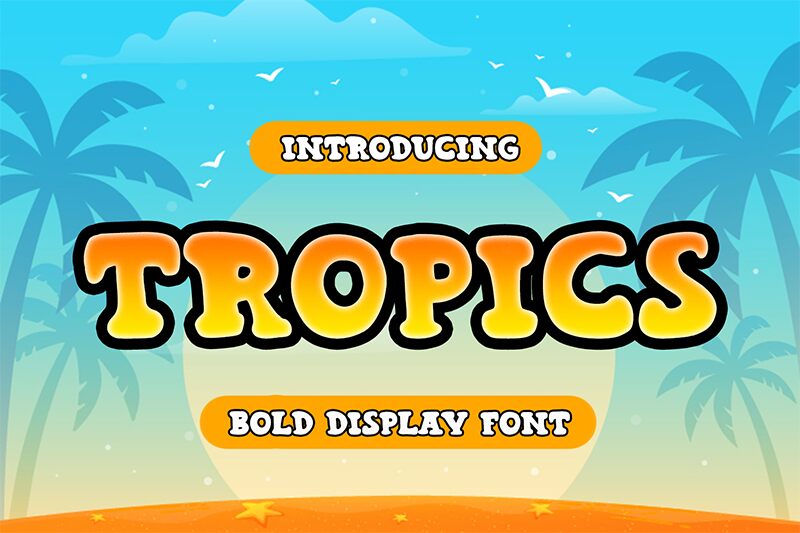
Tropics
Tropics font by Alpaprana Studio is characterized by organic rounded forms, retro influence, bold presence, and a casual mood. This free display font leans into a cartoon style inspired by the 1960s-1970s ambiance as seen in its approachable letter design. Aesthetically, Tropics draws attention to each of its characters while maintaining legibility.
The font’s playful nature fits perfectly within schoolbook covers and headlines. It also nicely complements cartoon/comic titles, branding and logo designs particularly for kids’ brands or educational institutions. Tropics is ideal for use on book covers, product packaging and labels (both digital and print), game designs, coloring books, birthday plaques/invitations/cards/posters/flyers/signage/banners among others!